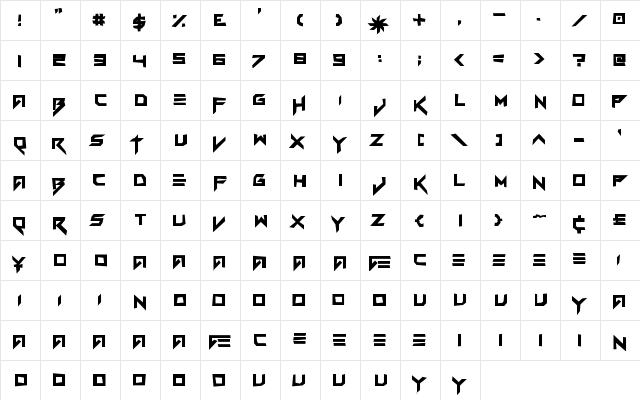
Vermin Vibes Corrupto Regular
Design Context for Vermin Vibes Corrupto Typeface
Vermin Vibes Corrupto is a composed and adaptable typeface that performs quietly and consistently across a wide range of design contexts.
Pro Tip: Use Vermin Vibes Corrupto in both headline and body roles to test its range before committing to a single application.